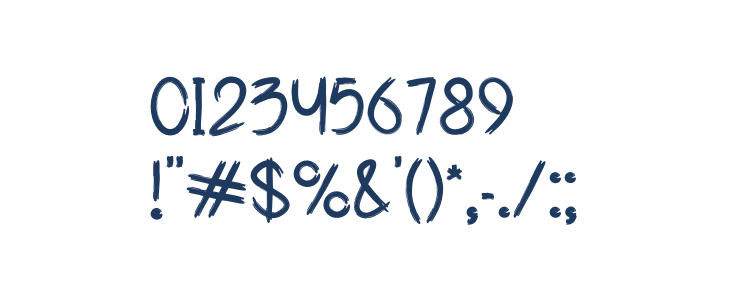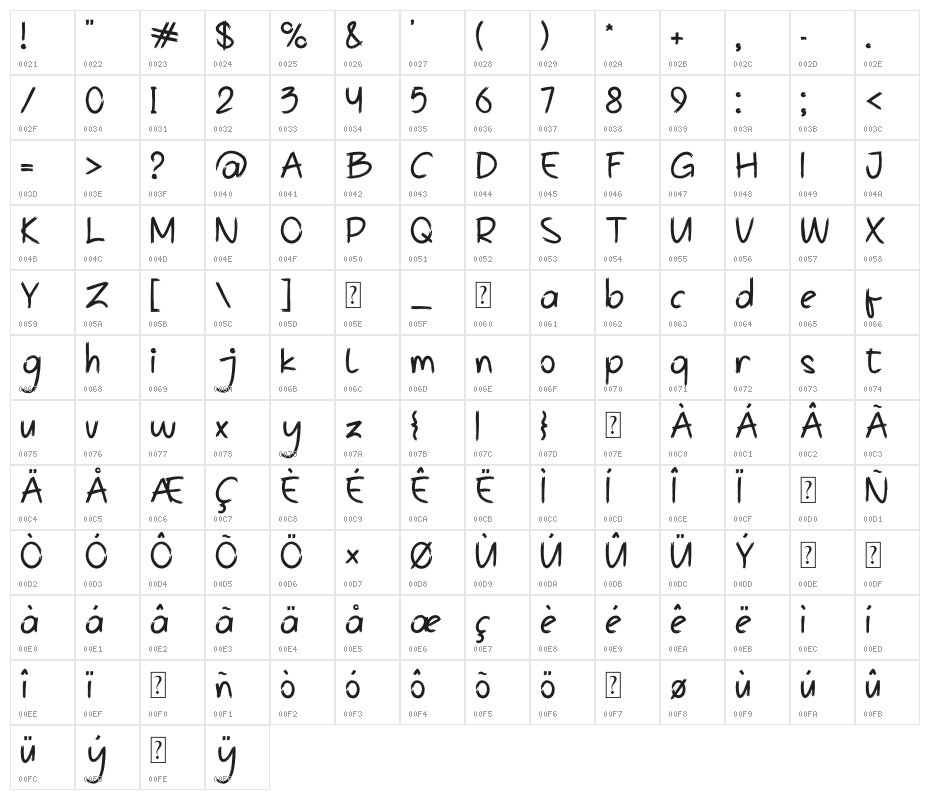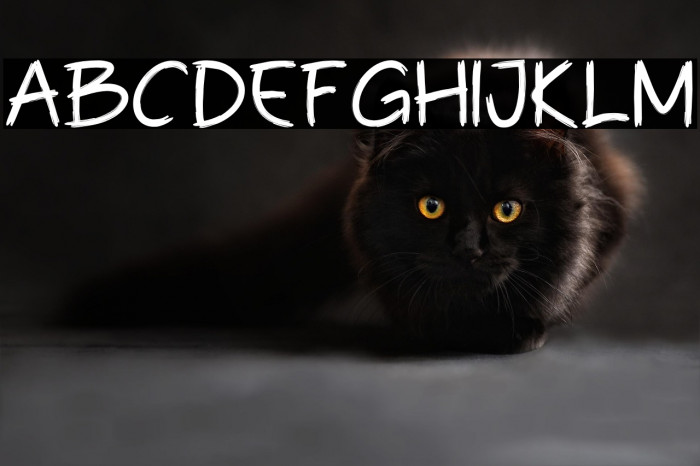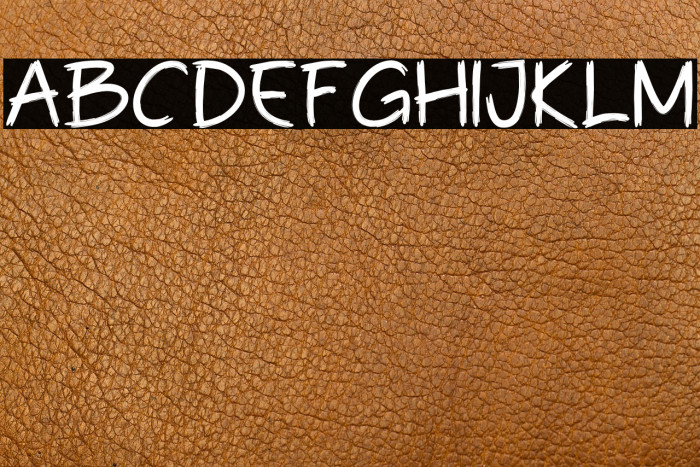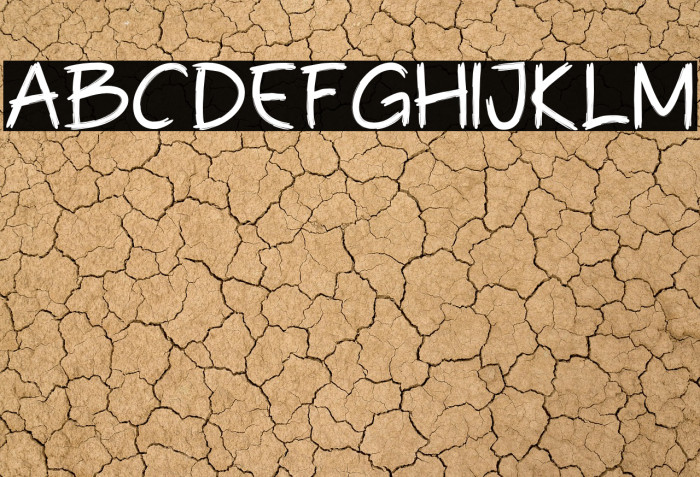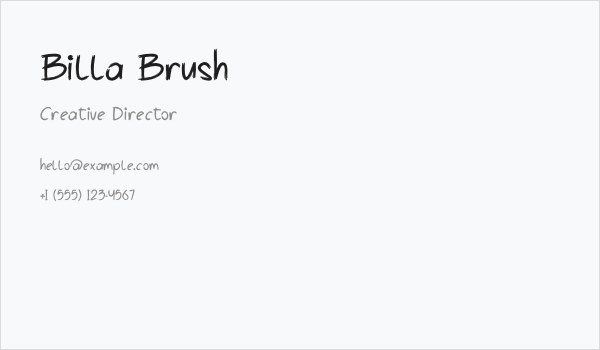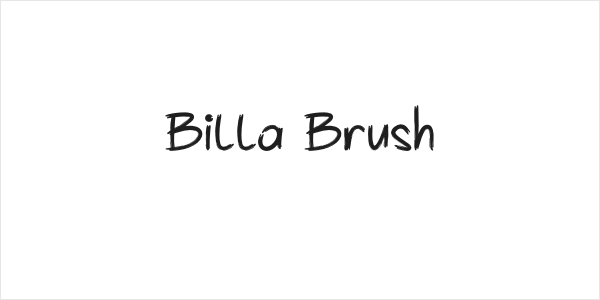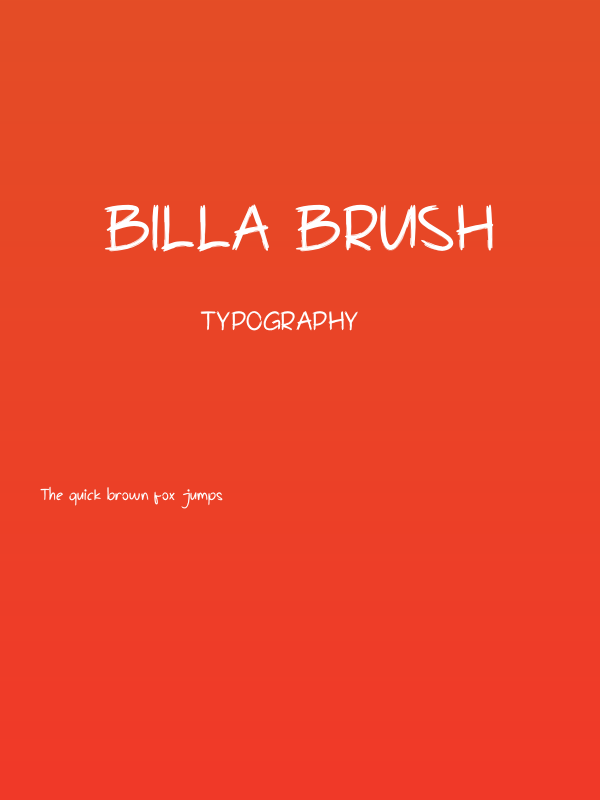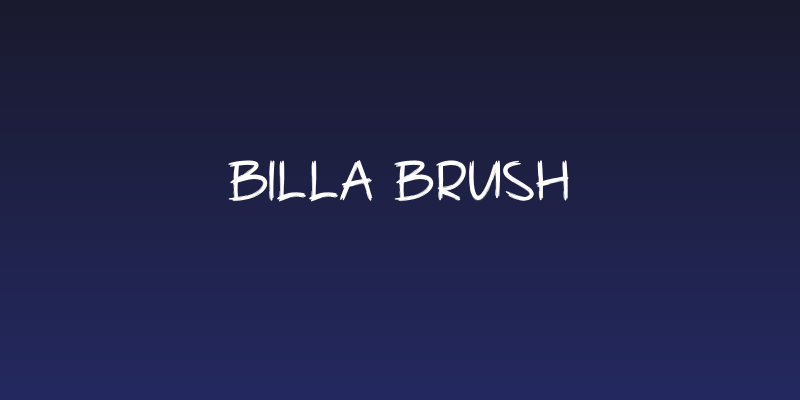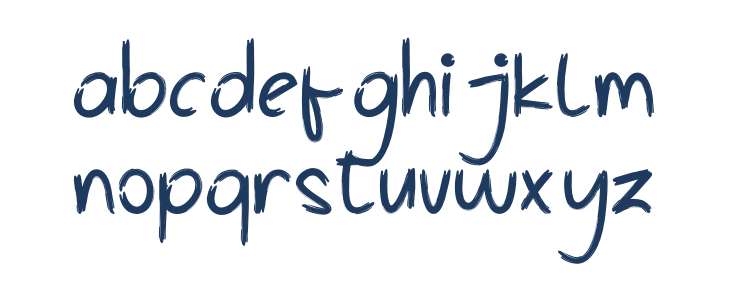
Billa Brush Font
Billa Brush Description
This font exudes a lively and energetic brush script style, characterized by its bold and dynamic strokes. The letters have a hand-painted appearance, with varying thickness that adds a sense of movement and spontaneity. The uppercase letters are tall and slightly angular, while the lowercase letters maintain a consistent flow, enhancing readability. The numerals and special characters are crafted with the same brush-like texture, ensuring a cohesive look across all elements. This font's playful yet assertive style makes it ideal for projects that require a personal touch.
| Proposed Projects | Ideal for branding, packaging, posters, and invitations where a personal and energetic touch is desired. |